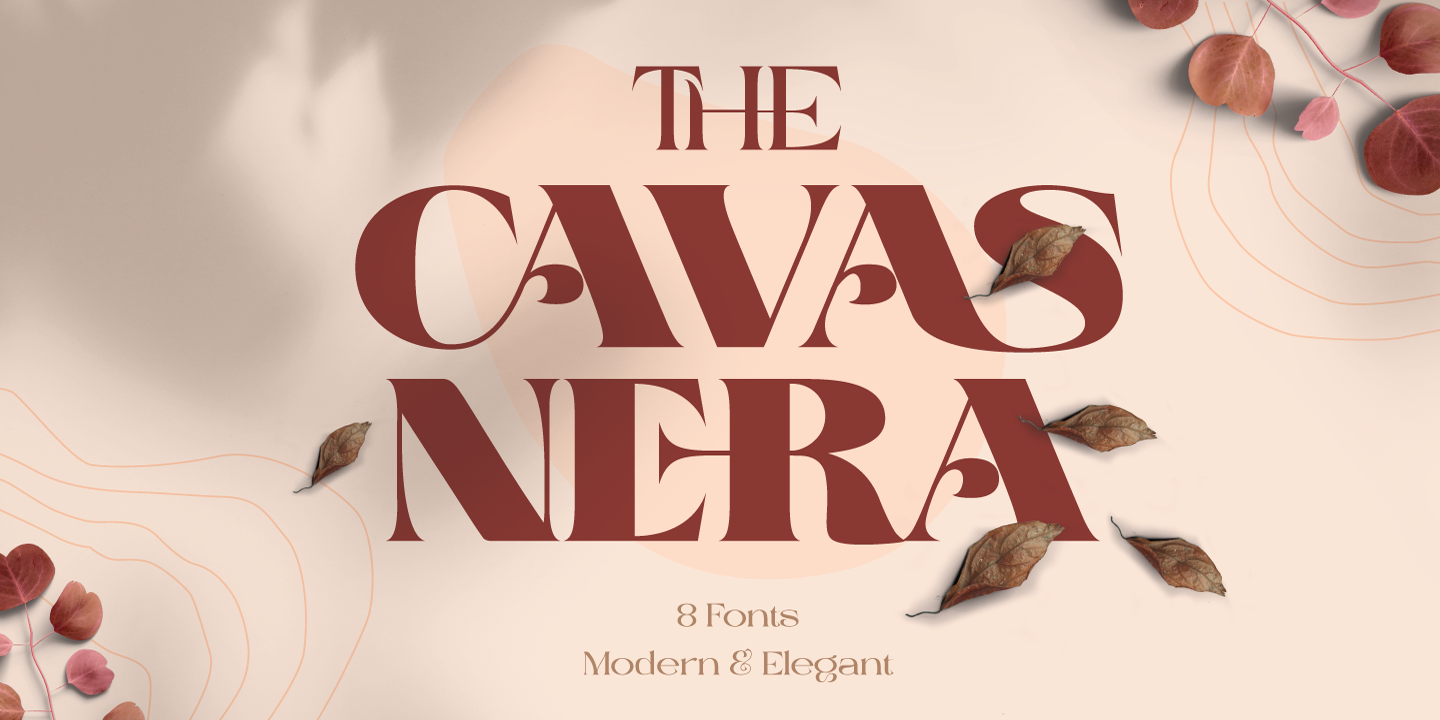
Cavas Nera Font Free Download is a modern and elegant serif typeface designed to bring sophistication and strength to any creative project. With its sharp lines, refined curves, and bold presence, this font is perfect for branding, editorial layouts, packaging, luxury goods, and promotional materials that require a stylish and professional look.
The distinctive letterforms of Cavas Nera ensure excellent readability while delivering a high-end, contemporary aesthetic across both print and digital platforms. Whether you are designing impactful headlines or elegant brand identities, Cavas Nera Font Free Download provides a polished and memorable visual experience.
Available in various weights and styles, Cavas Nera offers flexibility and creative power for diverse design needs. Download Cavas Nera Font Free Download today and elevate your projects with bold elegance and modern sophistication.